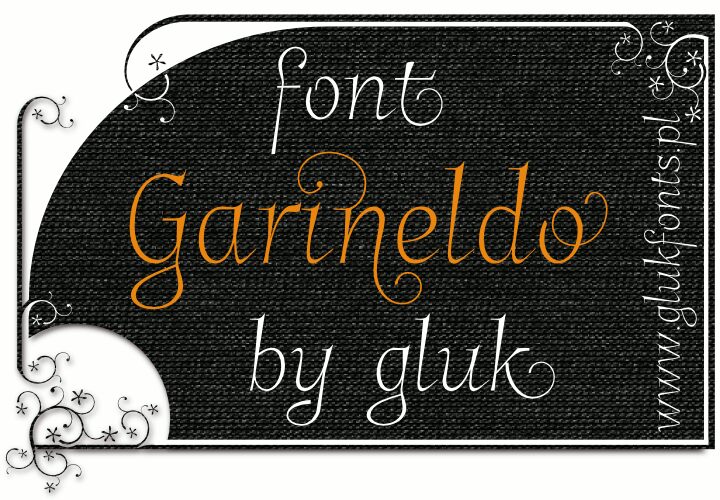
GarineldoNo01
Play with Garineldo (stylistic Sets) or try GarineldoNo01 with contextual, decorative Alternates.
New GarineldoNo02 with Swashes compatibles to GarineldoSC